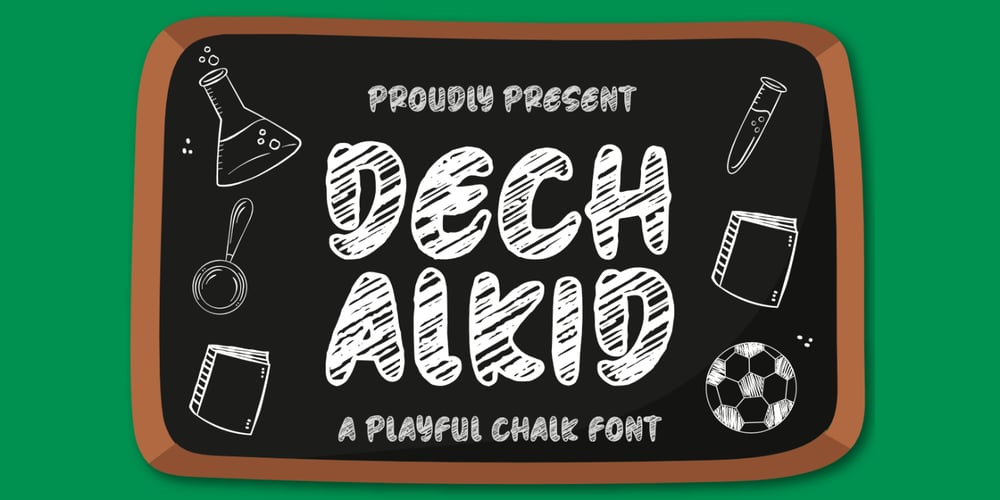
Dechalkid Font Family was designed by Bayu Aji Fais Mursid and published by Bayuktx. Dechalkid contains 1 styles and family package options. Hello,Thank you for visiting my products, we will give you the best choice.Dechalkid a Playful Chalk Font, This font is made with a high premium quality level which you can use as flyers, quotes, posters, banners, packaging, merchandise, logotypes and much more.FEATURES :* Uppercase* Lowercase* Number* Punctuation* Multilingual* PUA Encode* OpentypeFILES INCLUDED :* DechalkidThank you